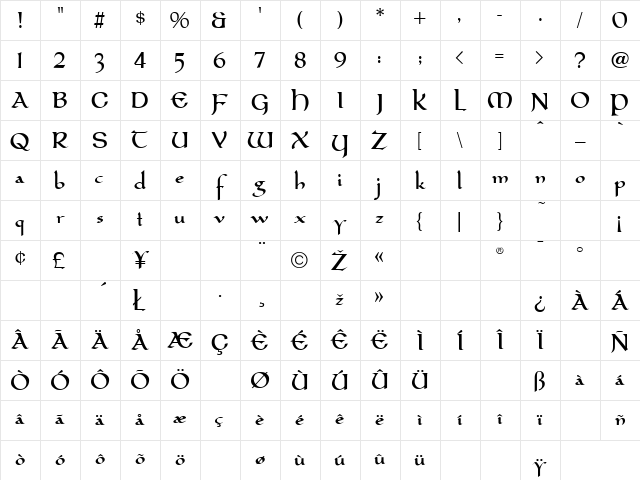
Scepter Normal
Design Context for Scepter
Scepter is a composed and adaptable typeface that performs quietly and consistently across a wide range of design contexts.